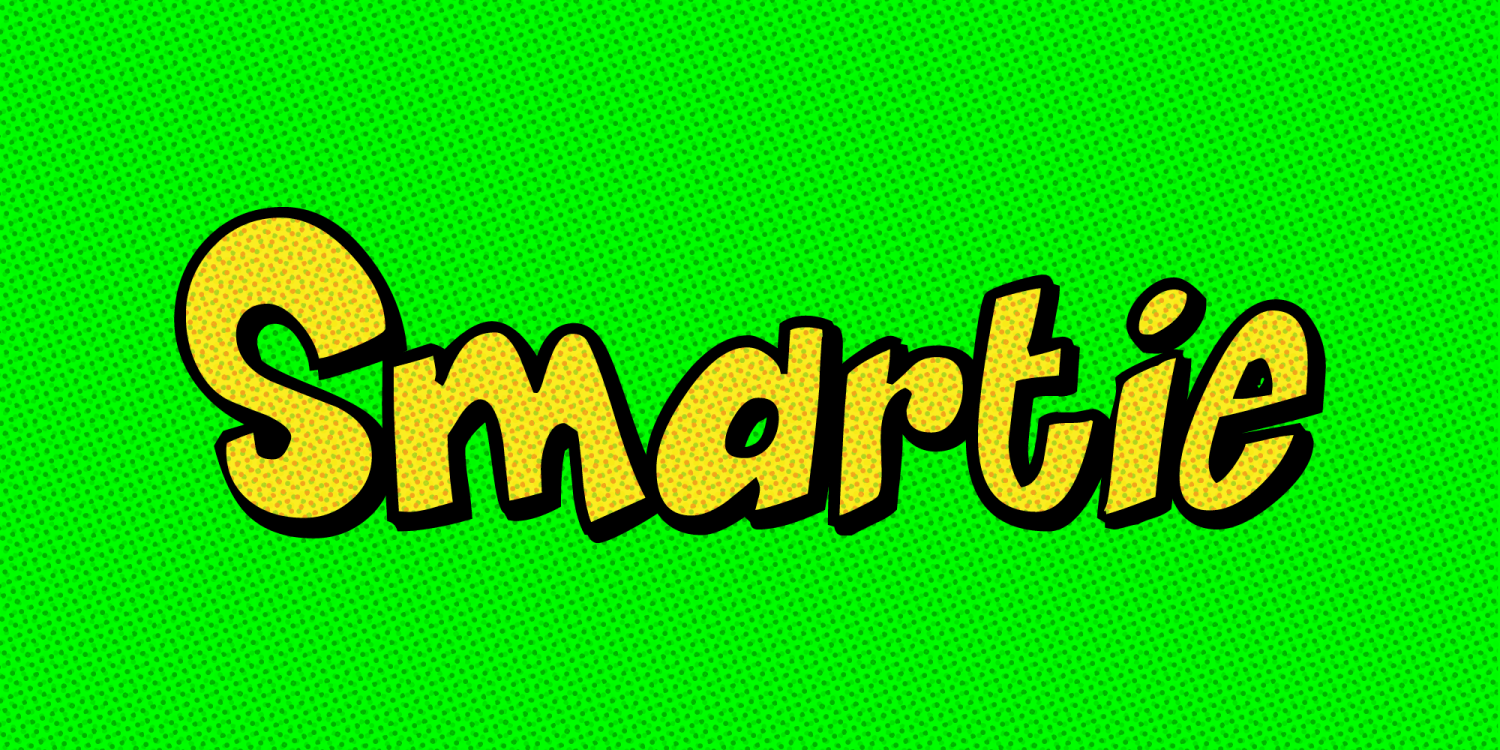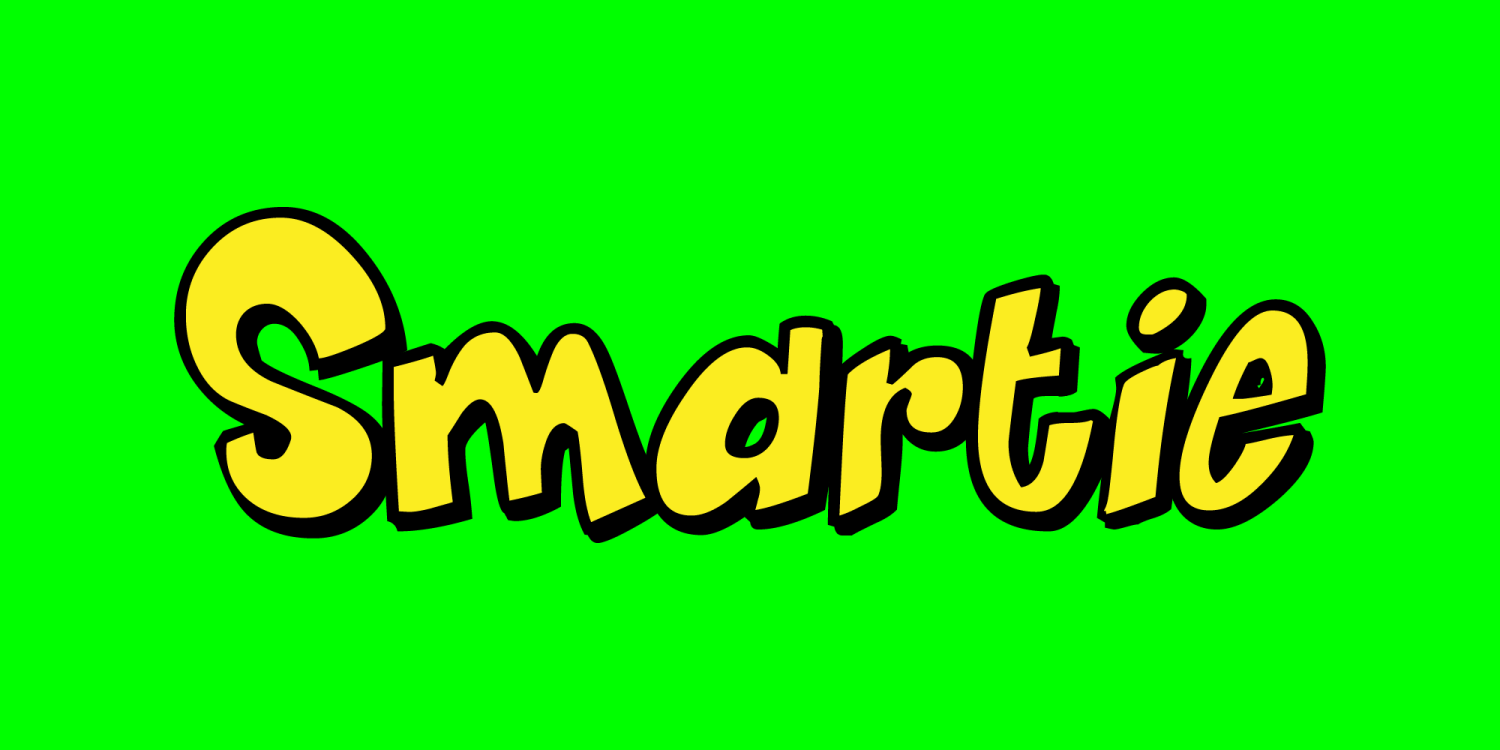
Smartie was such a popular font that I thought you all deserved some capital letters to go with the little ones. Now you have sentence-making material! This is the first new and improved font I have re-worked. The stroke is thicker, too. Its got pretty much everything you need to take care of bidniz. Its Smartie Time folks!!